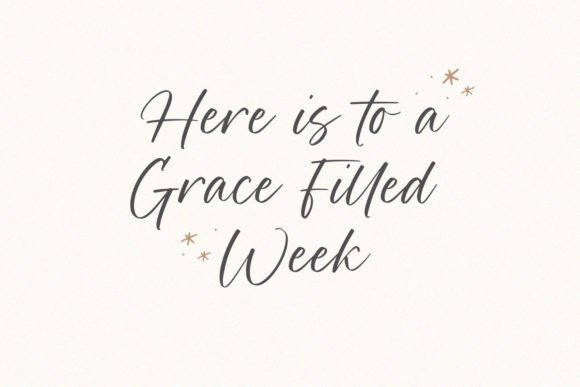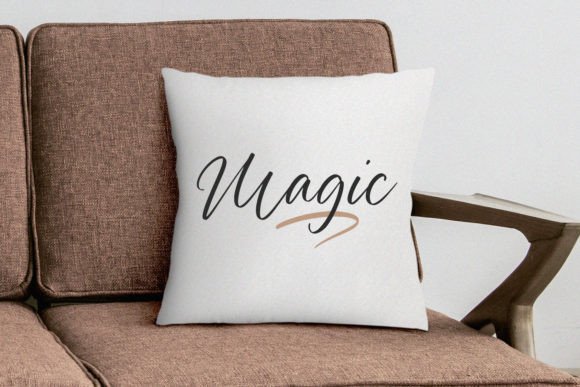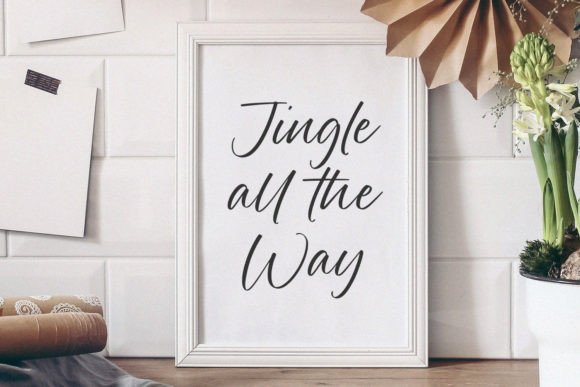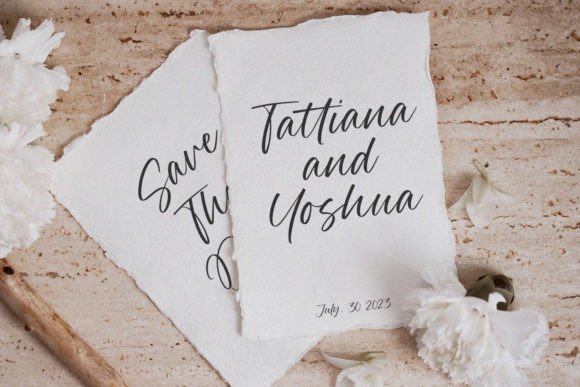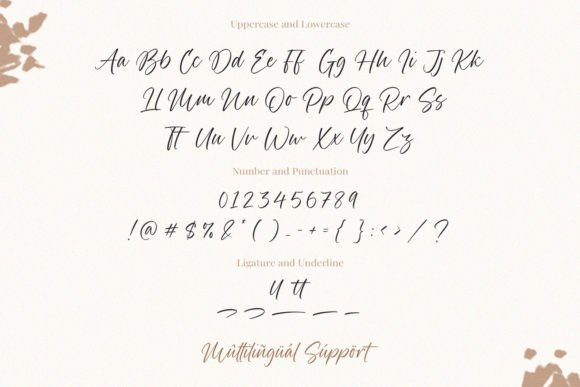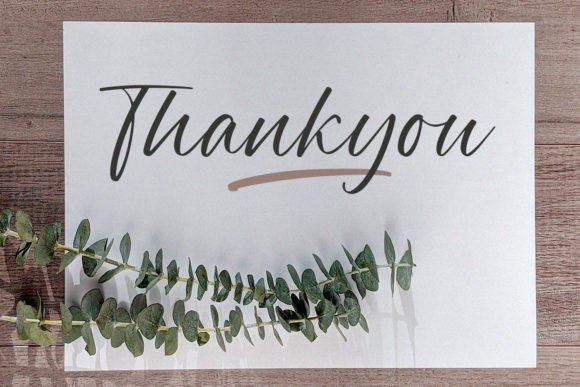
The Perfect Handwritten Touch: Unveiling the Ballistone Font
Imagine strolling through a vintage bookstore, running your fingers over the pages of a well-loved journal, or flipping through the latest issue of your favorite magazine. It’s the handwritten notes, the quirky typography, and the unique charm that makes each of these experiences truly special. For designers, finding the perfect font to capture that essence can be a challenge. But what if I told you that there’s a font that can bring that handwritten touch to your designs with ease?
Enter the Ballistone Font, a beautiful handwritten font created with care, especially for designers like you. Whether you’re working on a product packaging project, a branding campaign, or a wedding invitation, Ballistone Font is the perfect companion to help you add a personal touch to your designs. Its versatility, elegance, and charm make it a valuable addition to any designer’s toolkit.
Ballistone Font Key Features
- Size: The font family includes 8 styles ranging from Thin to Black, each with a unique character set.
- Unique Characteristics: This font features a unique blend of modern and vintage elements, with a distinctive ball-bearing-inspired design motif.
- Language Support: Ballistone Font supports a wide range of languages, including Latin, Cyrillic, and Greek scripts.
Designer Review: Ballistone Font
Overall, I was excited to dive into the Ballistone Font, but my experience was a bit of a mixed bag. ✨ Here are some aspects where it truly shines:
- Unique Style: Ballistone Font offers a distinct and modern aesthetic that’s perfect for projects requiring a touch of edginess.
- Wide Character Set: The font includes a comprehensive set of characters, including special symbols and punctuation marks, which is a plus for designers working with diverse content.
However, there are a few areas where Ballistone Font falls short: ⚠️
- Legibility at Small Sizes: While the font looks great at larger sizes, its readability diminishes significantly at smaller font sizes, making it less suitable for body text.
- Limited Language Support: Ballistone Font’s character set is mostly geared towards English and a few other Western languages, limiting its use in multilingual projects.
Overall, Ballistone Font is a great choice for projects requiring a bold, modern aesthetic, but its limitations in legibility and language support might make it less suitable for more complex or text-heavy designs.
Getting the Most Out of Ballistone Font
To get the most out of the Ballistone font, try pairing it with bold or italic styles to add emphasis and create visual interest. Also, experiment with different font sizes to create a balanced and harmonious design.
The Ballistone font is ideal for use in logos, headings, and titles, where its bold and playful personality can add a touch of sophistication and elegance. It’s also a great choice for use in packaging design, branding, and marketing materials.